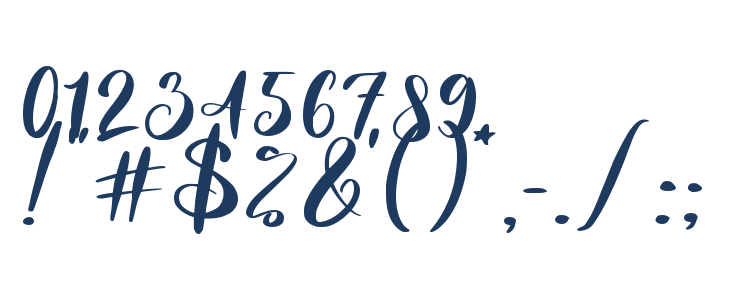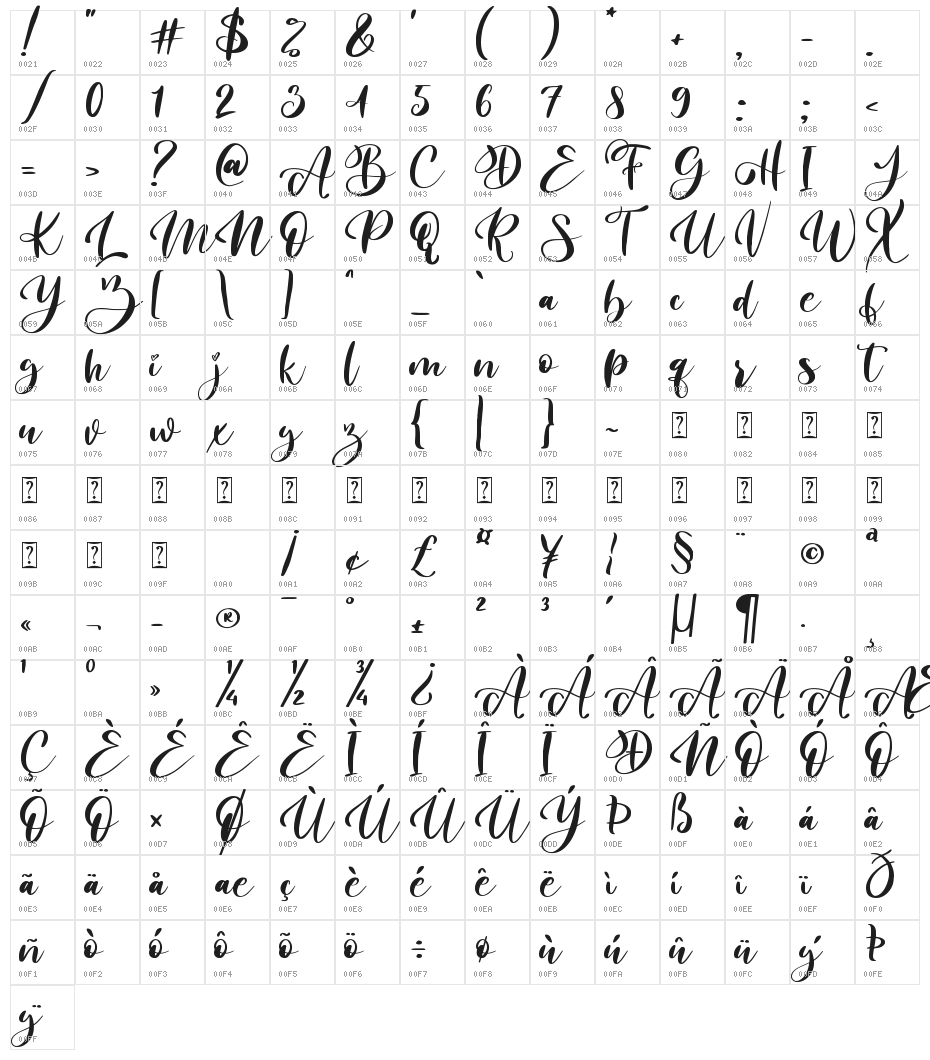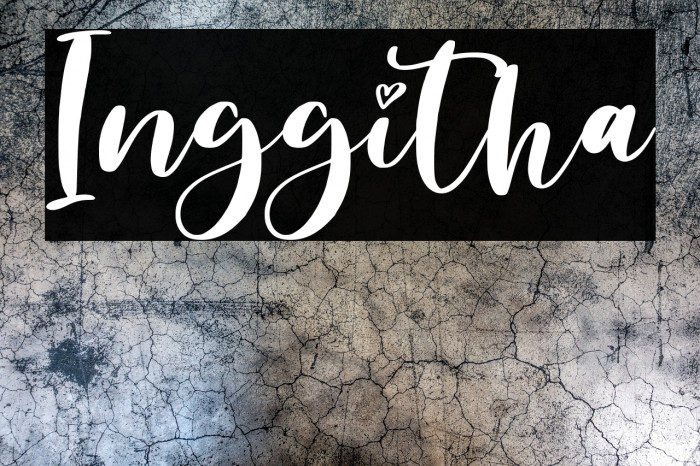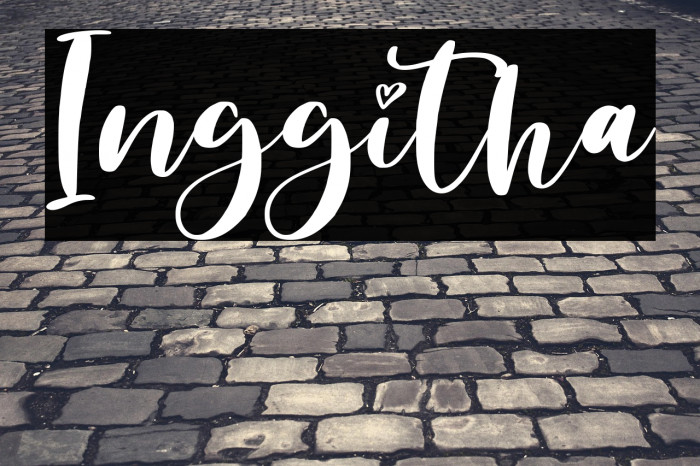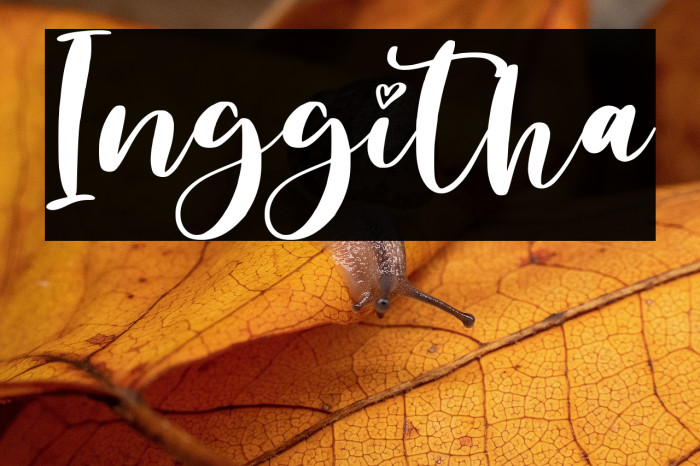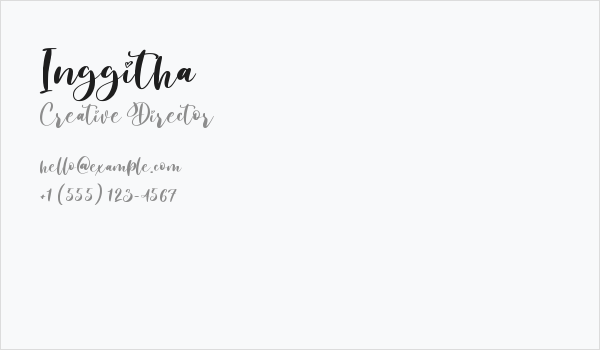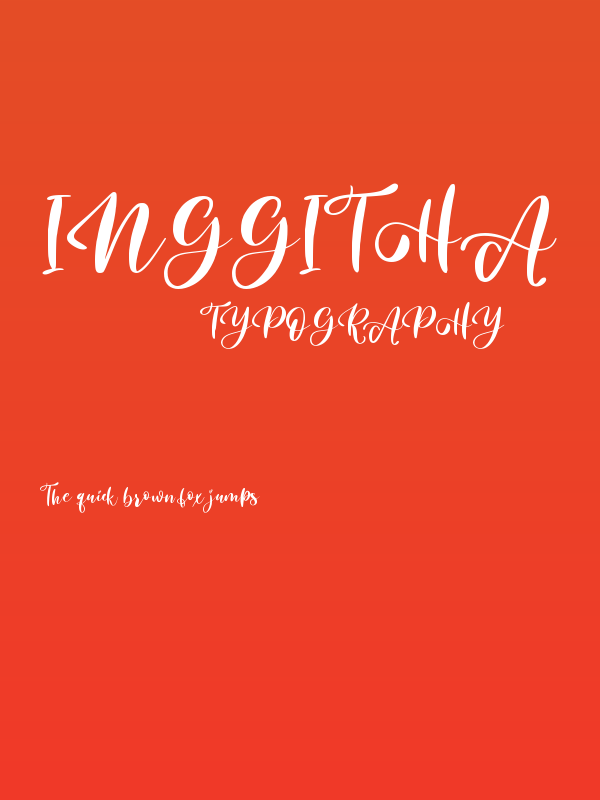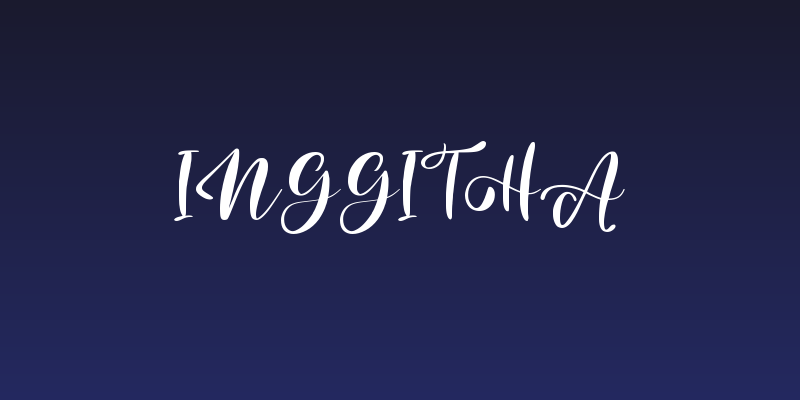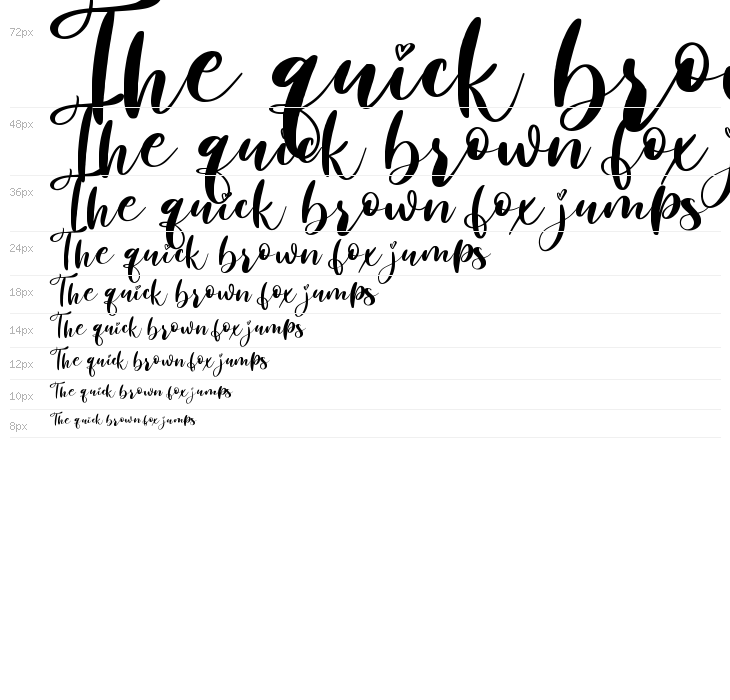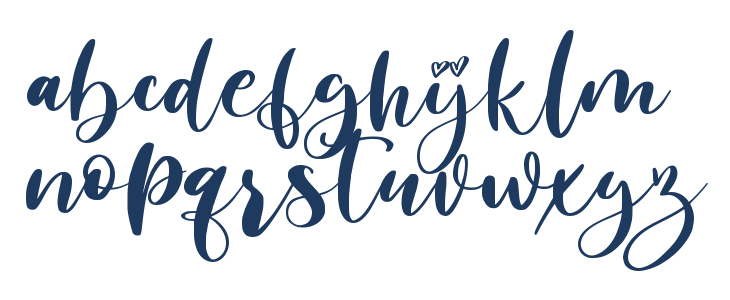
Inggitha Font
Inggitha Description
This font exudes a lively and elegant script style, characterized by its flowing and interconnected letterforms. The uppercase letters are ornate, with swirling flourishes that add a touch of sophistication. The lowercase letters maintain a consistent rhythm, with some featuring unique loops and curls that enhance the font's decorative appeal. The numerals are bold and slightly playful, matching the overall whimsical nature of the script. Special characters are thoughtfully designed, integrating seamlessly with the rest of the typeface. This font's dynamic and artistic flair makes it suitable for creative and expressive design projects.
Use CaseLogos, Invitations, Headlines
Proposed ProjectsIdeal for wedding invitations, greeting cards, branding projects, and any design requiring a touch of elegance and creativity.